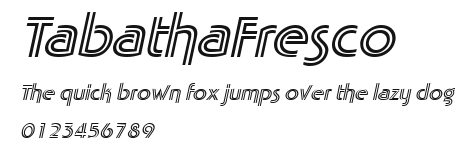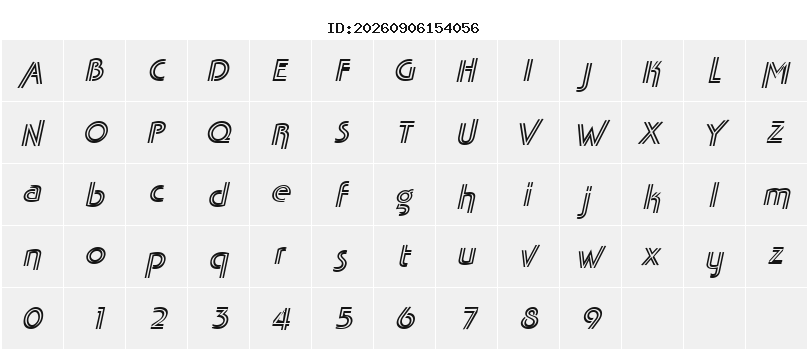
• Font Name: TabathaFresco
• Font Style: Italique
• Font ID: Weatherly Systems, Inc. TabathaFresco Italic
• Full Font Name: TabathaFresco Italique
• Version: W.S.I. Int'l v1.1 for GSP: 6/20/95
• PostScript Name: TabathaFresco-Italic
• Character Count: 225
About TabathaFresco.ttf
TabathaFresco.ttf is a modern, elegant sans-serif font designed for ultimate readability and visual harmony. Perfect for branding, headlines, web design, and print materials.